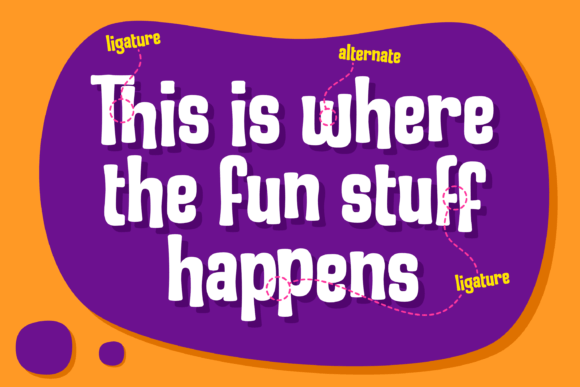
Little Kids Font: The Ultimate Choice for Fun and Playful Designs
Are you looking for a font that can add a touch of fun and playfulness to your designs? Look no further than Little Kids Font! This font is specially crafted for children, kids, boys, girls, kindergarten, children’s books, invitations, posters, menus, comics, and other graphic design purposes. In this article, we’ll explore the features and benefits of Little Kids Font and how it can make your designs look cool, playful, unique, and fun.
What is Little Kids Font?
Little Kids Font is a unique and creative font designed specifically for kids and children-related designs. The font features playful and fun shapes, making it perfect for designs that require a youthful and energetic feel. The font is carefully crafted to ensure that it is easy to read and understand, making it suitable for a wide range of applications, from children’s books to posters and invitations.
Key Features of Little Kids Font
- Playful and Fun Design: Little Kids Font features playful and fun shapes that are sure to capture the attention of kids and adults alike.
- Easy to Read: The font is carefully designed to ensure that it is easy to read and understand, making it suitable for a wide range of applications.
- Unique and Creative: Little Kids Font is a one-of-a-kind font that will make your designs stand out from the crowd.
- Versatile: The font is suitable for a wide range of applications, from children’s books to posters, invitations, and more.
Benefits of Using Little Kids Font
Using Little Kids Font can bring numerous benefits to your designs. Here are some of the advantages of using this font:
Why Choose Little Kids Font?
- Adds a Touch of Fun and Playfulness: Little Kids Font can add a touch of fun and playfulness to your designs, making them more engaging and appealing to kids and adults alike.
- Creates a Youthful and Energetic Feel: The font’s playful and fun design creates a youthful and energetic feel, making it perfect for designs that require a lively and vibrant atmosphere.
- Improves Readability: Little Kids Font is easy to read and understand, making it suitable for designs that require clear and concise communication.
- Enhances Creativity: The font’s unique and creative design can inspire creativity and imagination, making it perfect for designs that require a touch of innovation and originality.
How to Use Little Kids Font
Using Little Kids Font is easy and straightforward. Here are some tips on how to use the font effectively:
Tips for Using Little Kids Font
- Choose the Right Size: Choose a font size that is easy to read and understand, depending on the application and design.
- Experiment with Colors: Experiment with different colors to find the perfect combination that matches your design and brand.
- Pair with Other Fonts: Pair Little Kids Font with other fonts to create a unique and creative design.
- Use for Headings and Titles: Use Little Kids Font for headings and titles to add a touch of fun and playfulness to your designs.
Little Kids Font for Different Applications
Little Kids Font is suitable for a wide range of applications, including:
Little Kids Font for Various Design Purposes
- Children’s Books: Use Little Kids Font for children’s books to create a fun and engaging reading experience.
- Posters and Invitations: Use the font for posters and invitations to add a touch of fun and playfulness to your designs.
- Kindergarten and Education: Use Little Kids Font for kindergarten and education-related designs to create a youthful and energetic atmosphere.
- Menus and Comics: Use the font for menus and comics to add a touch of fun and creativity to your designs.
| Font Name | Little Kids Font |
| Author | Toko Laris Djaja |
In conclusion, Little Kids Font is a unique and creative font that can add a touch of fun and playfulness to your designs. With its playful and fun design, ease of readability, and versatility, Little Kids Font is perfect for a wide range of applications, from children’s books to posters, invitations, and more. Whether you’re a designer, educator, or parent, Little Kids Font is an excellent choice for creating engaging and appealing designs that kids and adults will love.